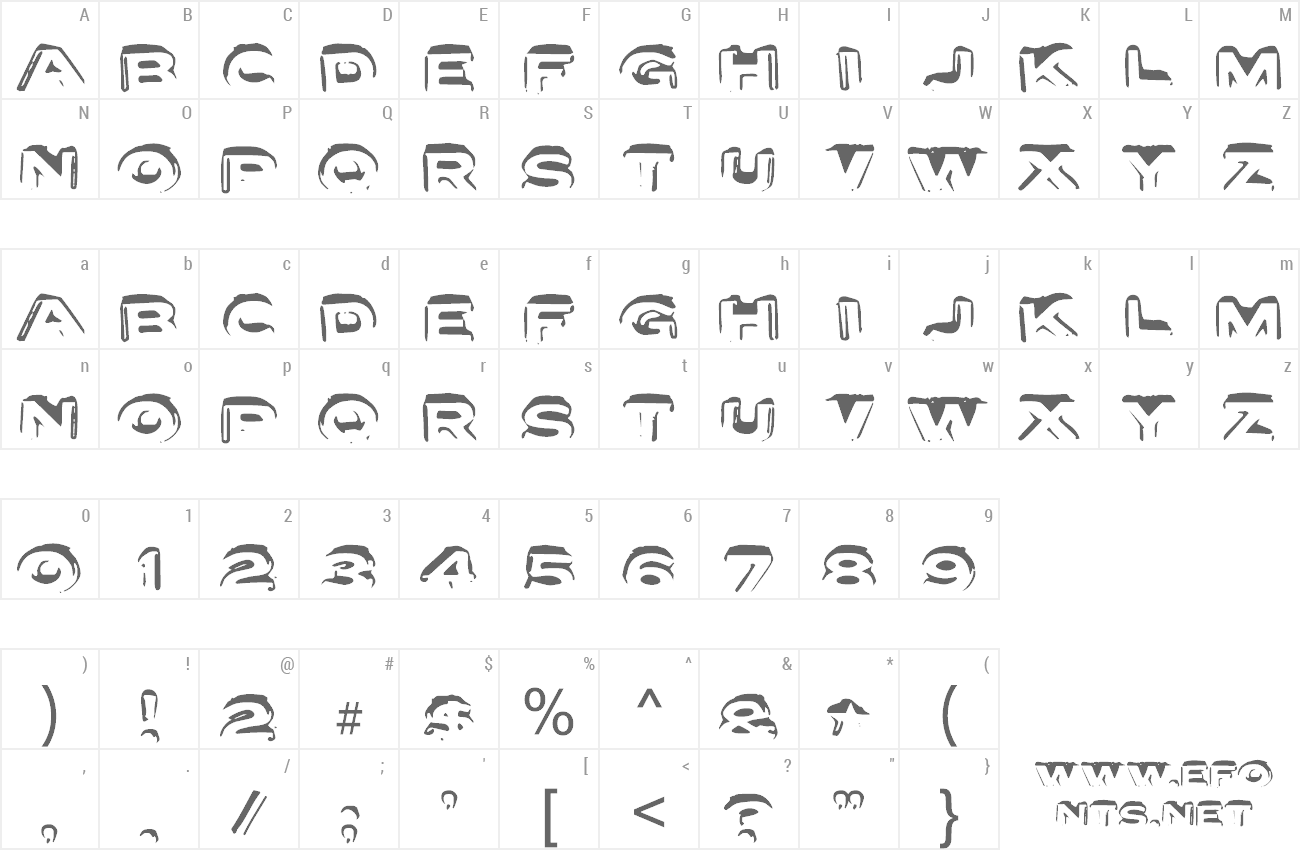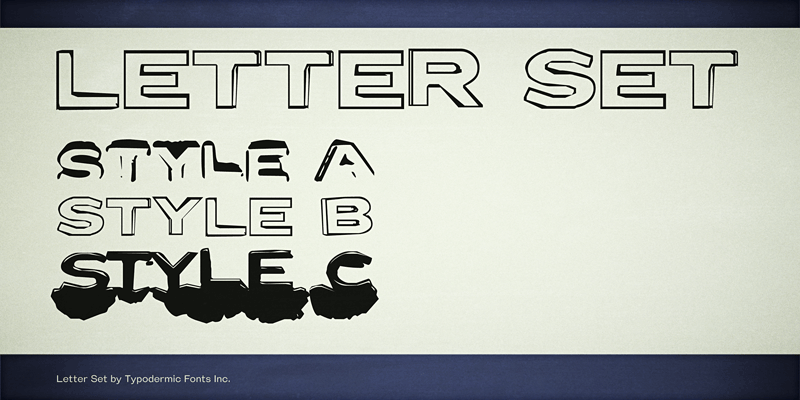
Preview and download Letter Set Font. Created by Typodermic Fonts in Fancy Destroy styles with 100% Free license.
Letter Set is a set of 3 fonts based on ceramic letters used for titling home movies in the 1960’s. These fonts include a license that allows free commercial use: sometimes referred to as a desktop license. This allows you to install the fonts on a computer and use them to create posters, web graphics, game graphics, t-shirts, videos, signs, logos and more. Read the license agreement for details. If you'd like to embed these fonts in an app, ebook, on the web or anything that's not covered by the desktop license agreement, visit the link below. You'll find distributors who offer different types of licenses or you can contact me for help. http://typodermicfonts.com/letter-set/ |